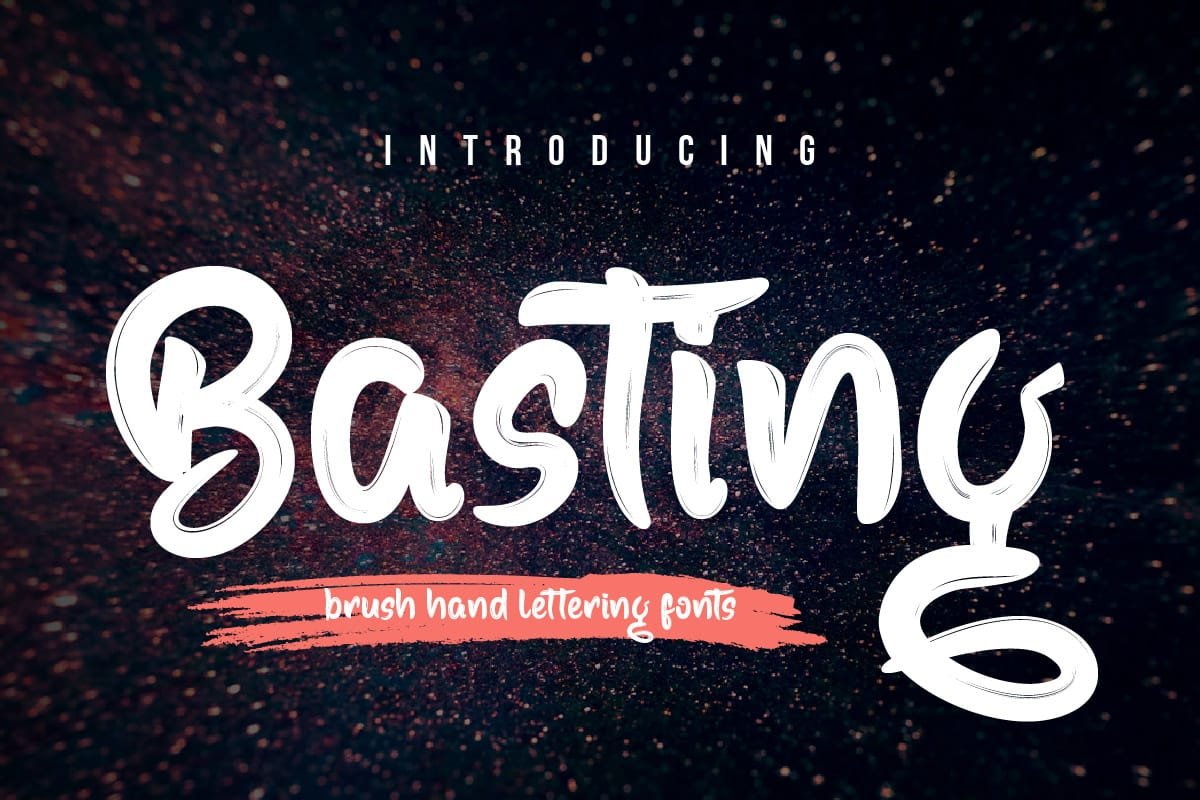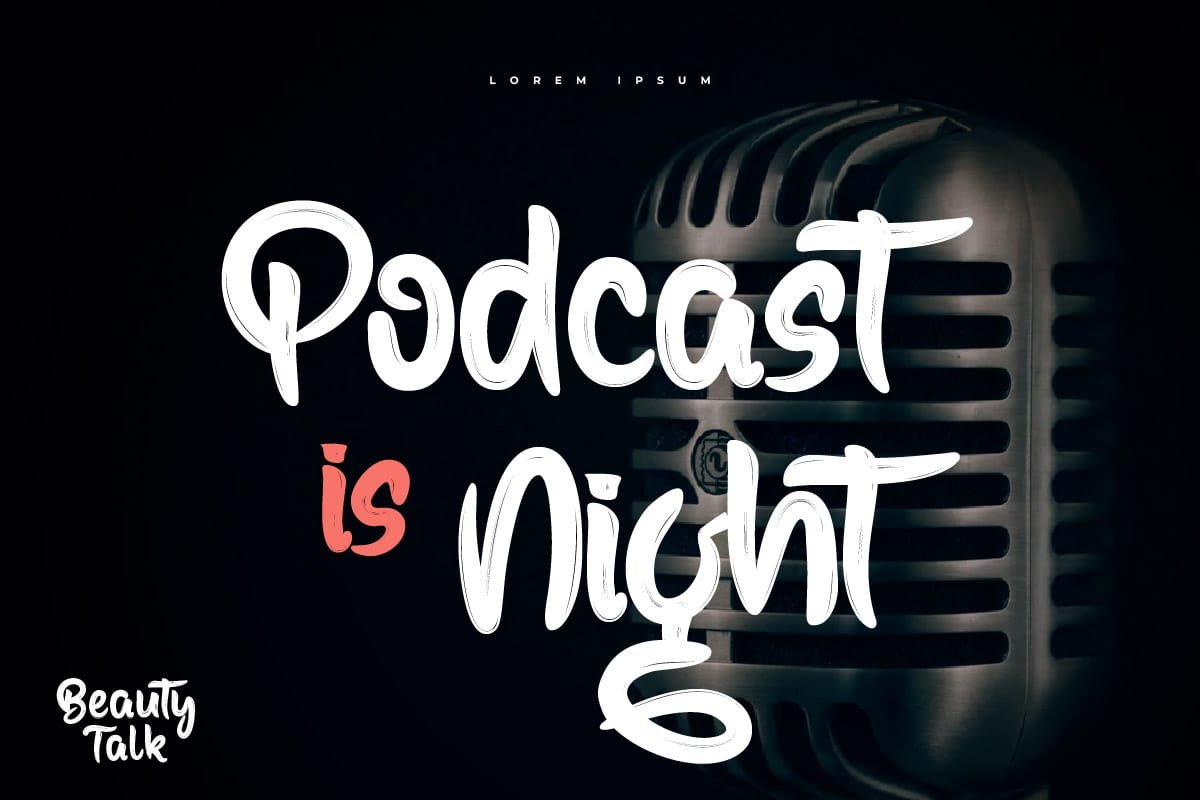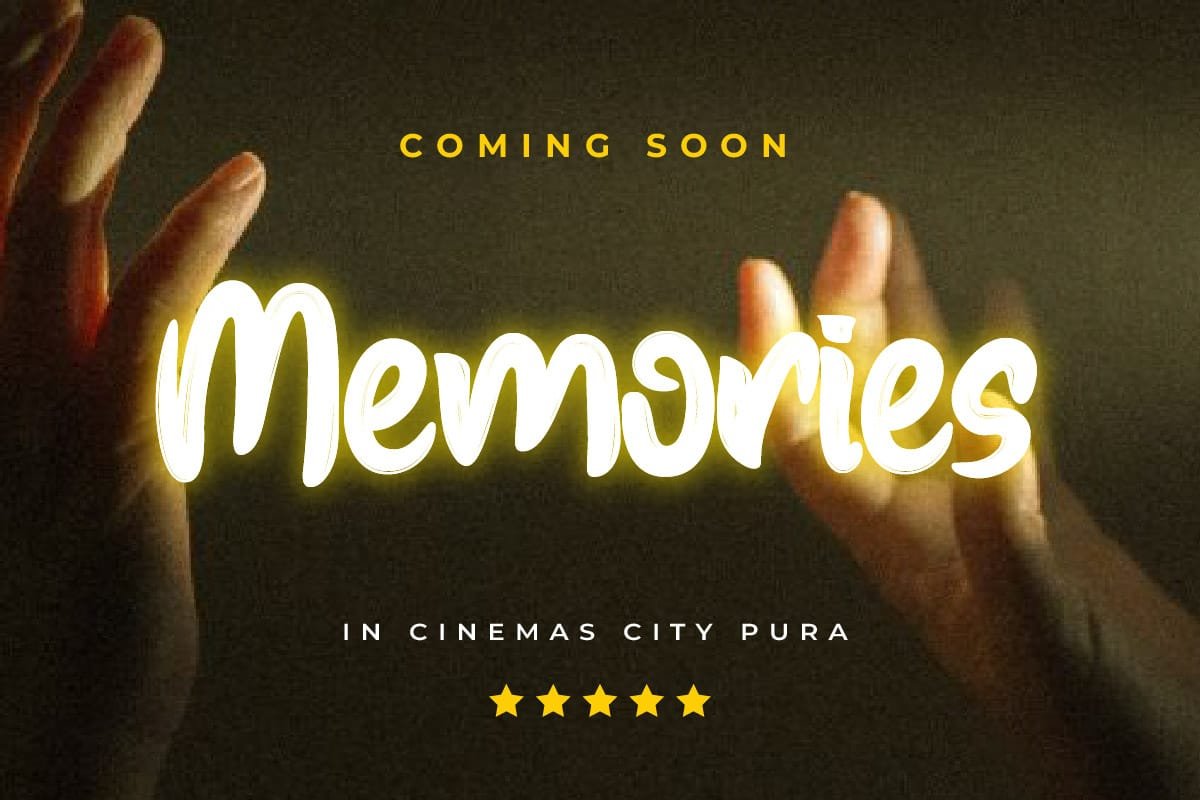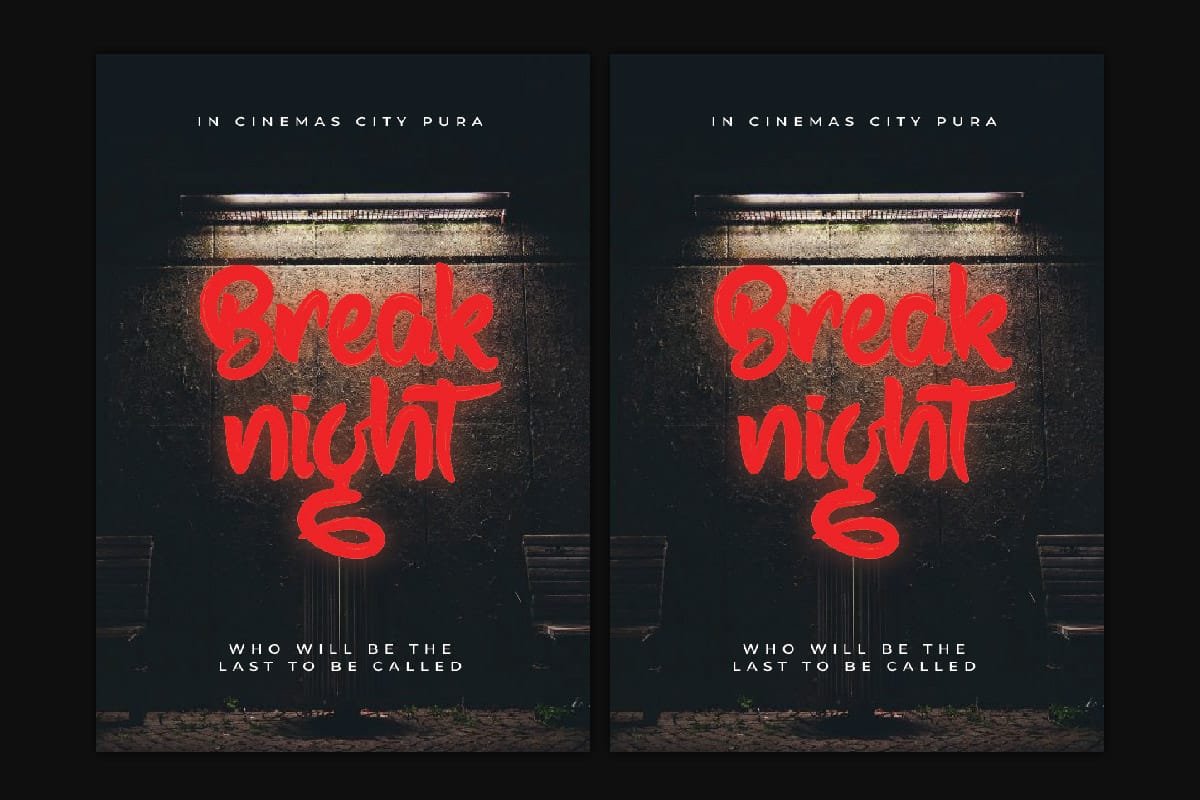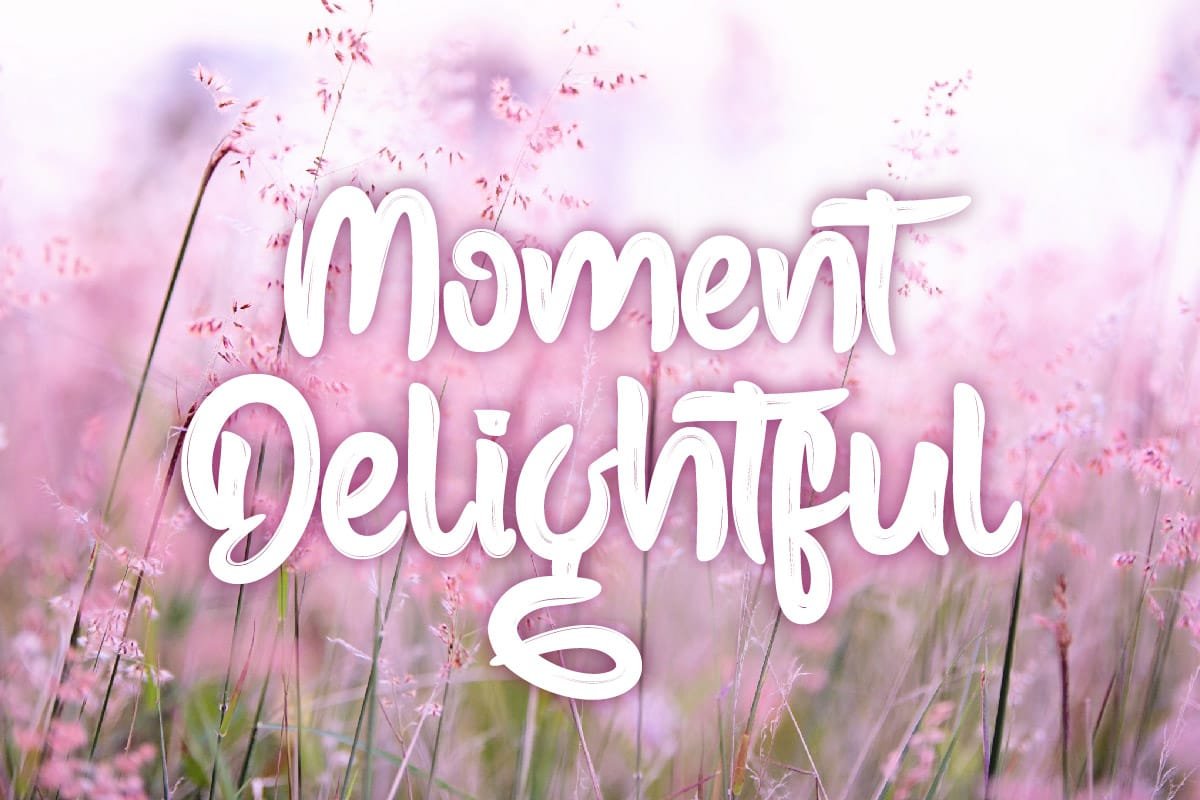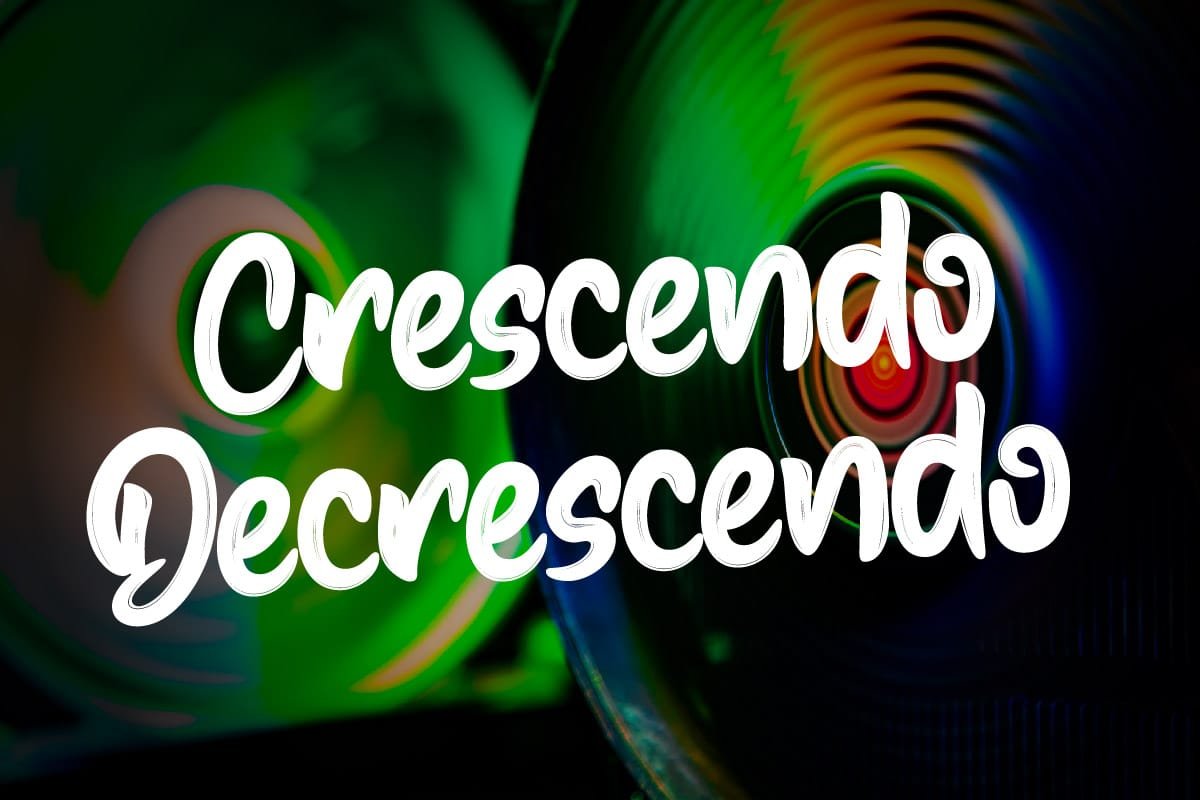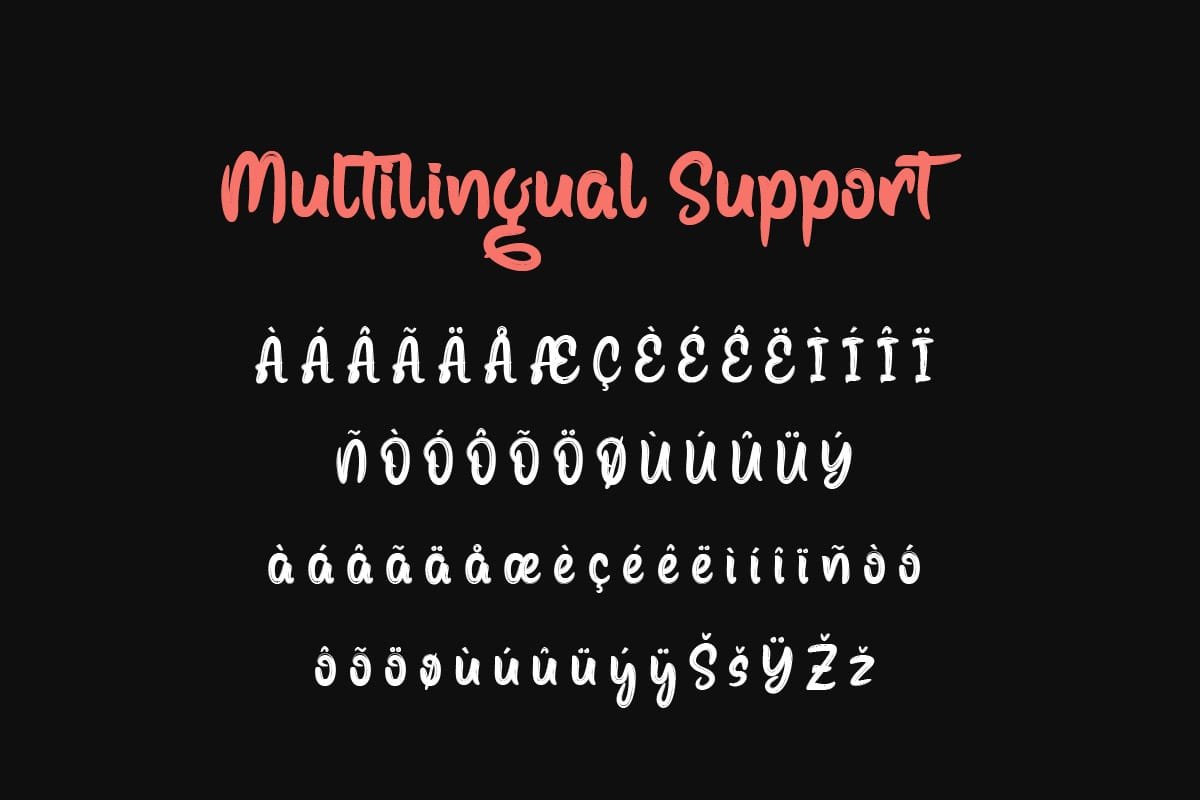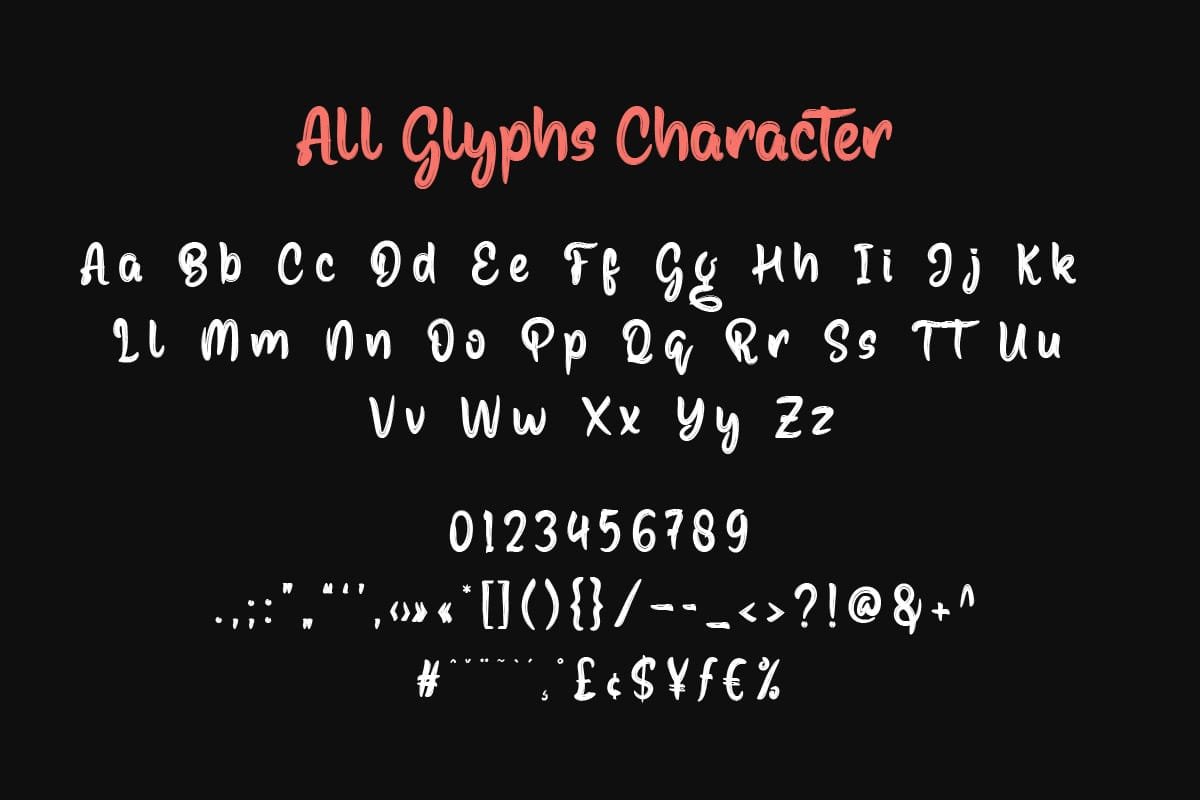
- Basting – Brush Handwritten Font
Basting is a brush handwritten font that combines style and spontaneity. Its unique, free-flowing characters are perfect for designs that require a touch of creativity and individuality. From eye-catching headlines to personal signatures, Basting adds a touch of personality that makes your designs stand out.